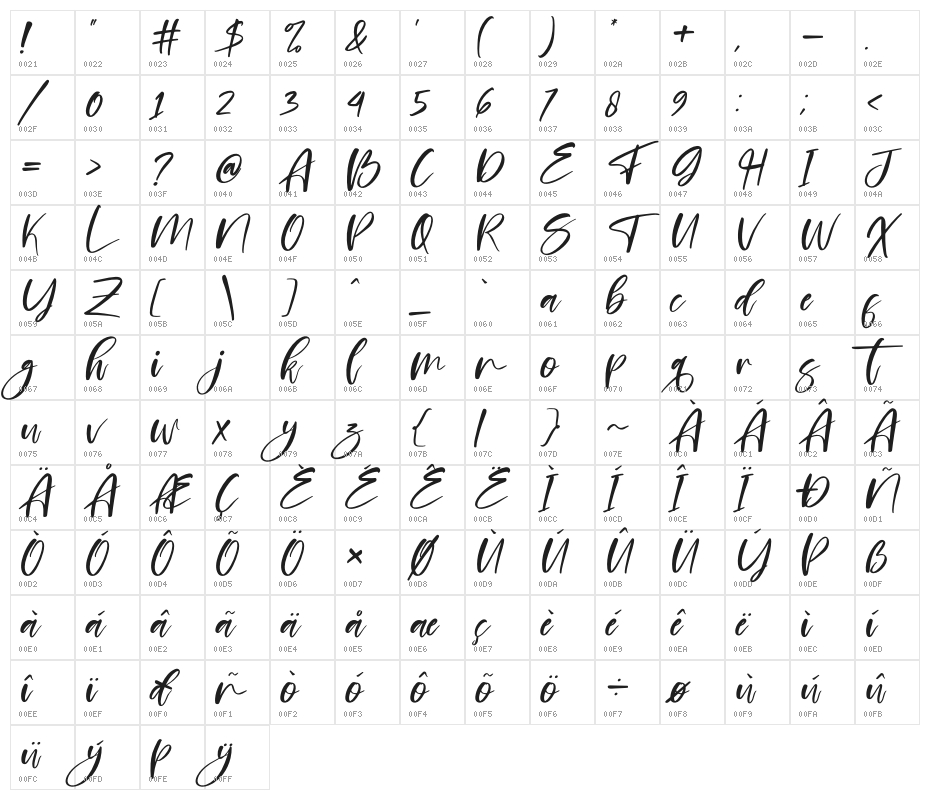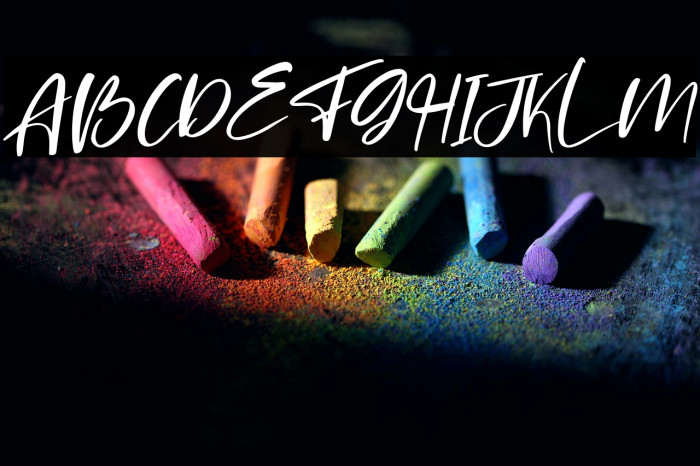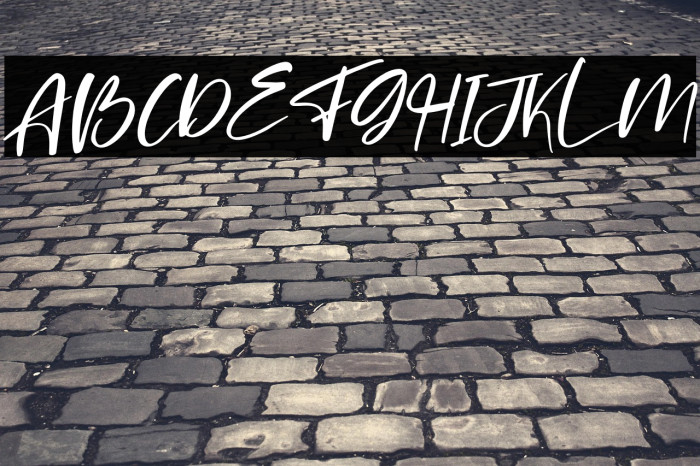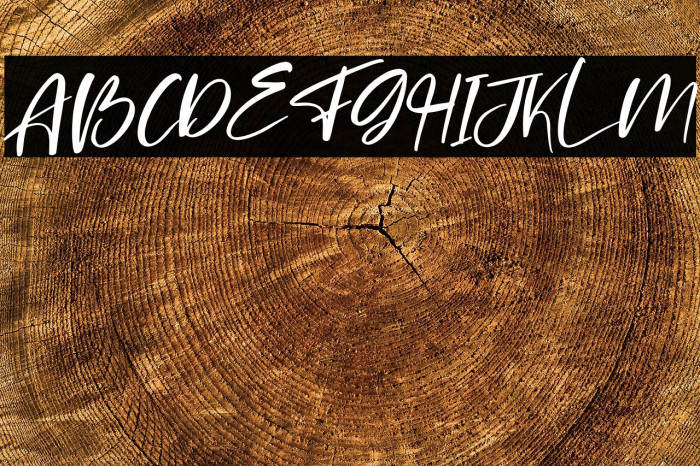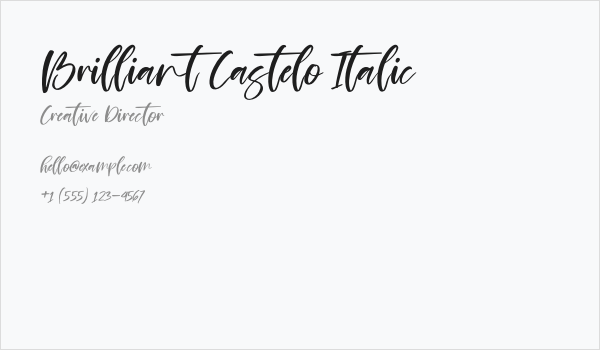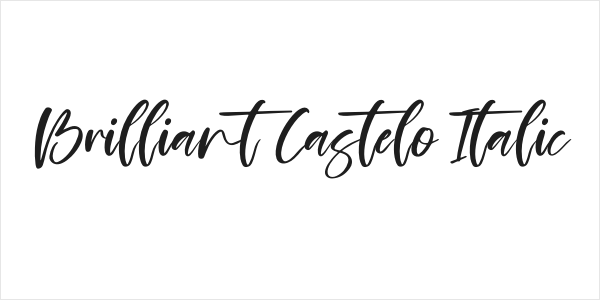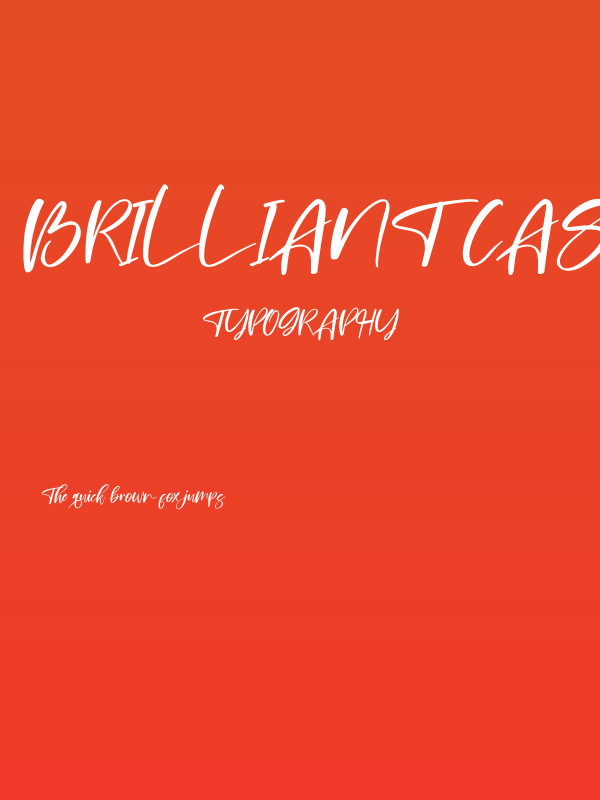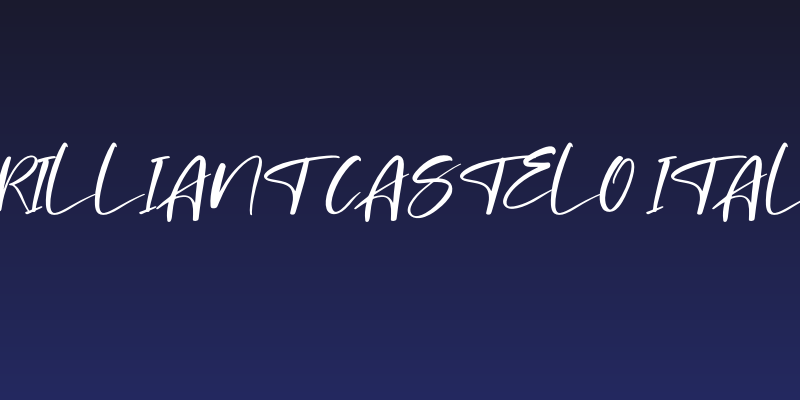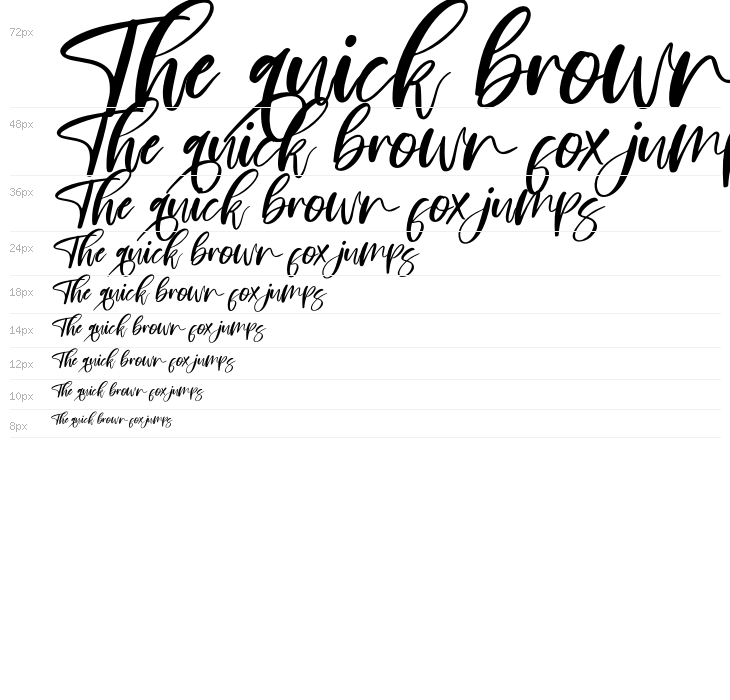
Brilliant Castelo Italic Font
Brilliant Castelo Italic Description
This font exudes a dynamic and energetic style, characterized by its fluid and cursive script. The letters are elegantly connected, creating a sense of movement and flow. The uppercase letters maintain a consistent height, while the lowercase letters exhibit a playful variation in size and slant. The numerals are bold and slightly slanted, complementing the overall aesthetic. Special characters are uniquely styled, adding a touch of flair. The font's strokes are smooth and slightly varied in thickness, contributing to its lively appearance.